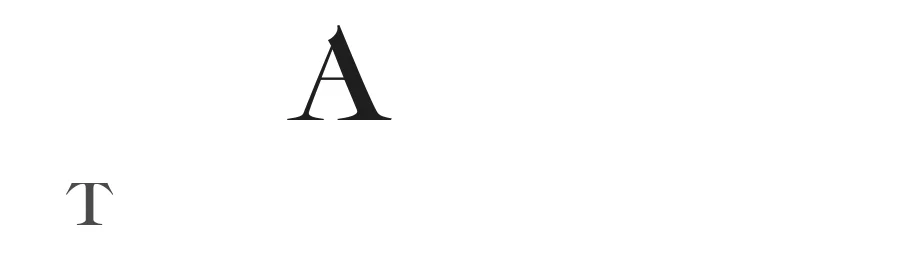
About Shadow Hill Font
Tamara Hall
Shadow Hill Font is a versatile serif font that works for both headings and body text. Pair it with a contrasting sans-serif or slab serif font to add visual interest and a clear distinction between titles and body copy.
Shadow Hill Font
by Tamara Hall